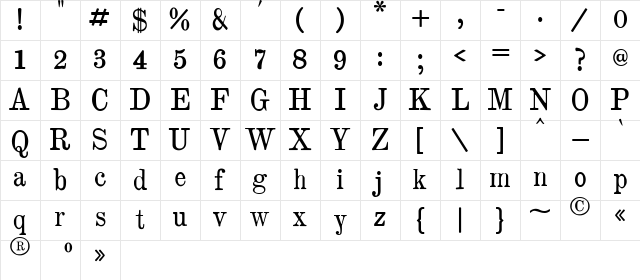
Complete Brokgauz & Efron Regular glyph index. Displaying only characters natively supported by Brokgauz & Efron Regular font.
Brokgauz & Efron is a composed and adaptable typeface that performs quietly and consistently across a wide range of design contexts.